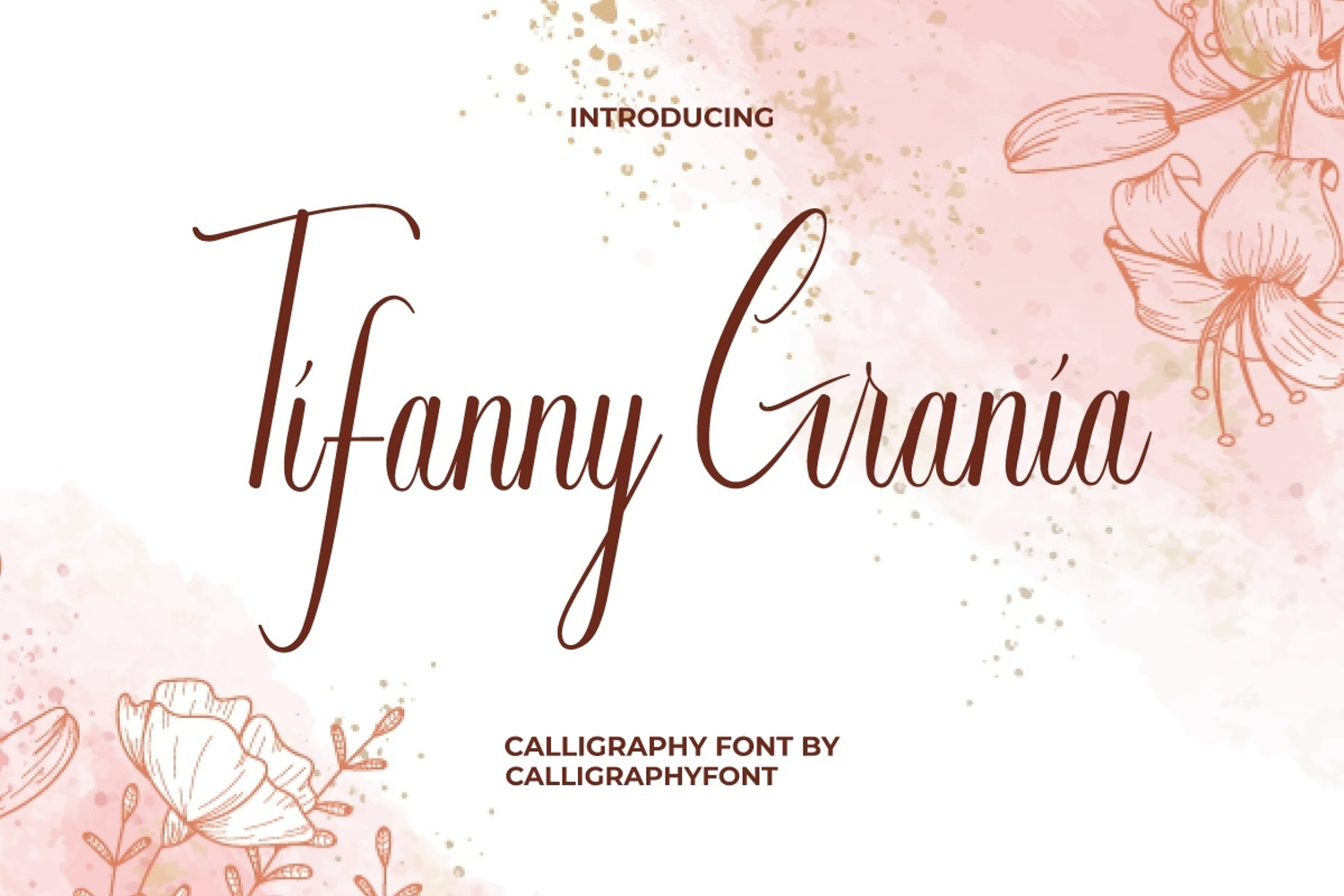
Tifanny Grania Font
Tifanny Grania Font is a classy Calligraphy font with ligature alternatives and one of the most elegant fonts for luxury themes for touch to your designs. Authentic and organic handcrafted with a distinctive style, this font has been carefully designed to recreate natural writing. Each character is well-arranged and organized so it will be suitable for creating invitations, logos, labels, packaging designs, stationery, title, or an awesome combination of letters to place on the background. This font will be ready to help you!
Introducing Tifanny Grania Calligraphy Font, a beautifully handcrafted script that brings timeless elegance and sophistication to your designs. With flowing curves and delicate flourishes, this calligraphy font adds a touch of luxury and grace to any project. Perfect for wedding invitations, branding, logos, packaging, greeting cards, and social media posts, Tifanny Grania is designed to elevate your work with its refined, artistic style.
Discover the beauty of handwritten elegance with Tifanny Grania Calligraphy Font. This exquisite script font features flowing lines and delicate curves, designed to bring a sophisticated. Whether you’re designing wedding invitations, luxury branding, greeting cards, or social media visuals, Tifanny Grania adds a timeless charm that captivates and inspires.
Elevate your designs with the delicate beauty of Tifanny Grania Calligraphy Font. This enchanting script font features elegant, flowing strokes that bring romance and sophistication to every project.
• Elegant & Sophisticated
• Versatile Use
Tifanny Grania Font is a beautiful Calligraphy style font with elegant looking characters. It has ligature alternatives to add aesthetic value to this font. It is also designed to be easily paired with a variety of fonts. This font is perfect for accessories and gifts, bridal boutique, cafeteria, event organizer, florist, graphic design, hotel, printing, publishing, real estate, restaurant, spa salon, and many more.